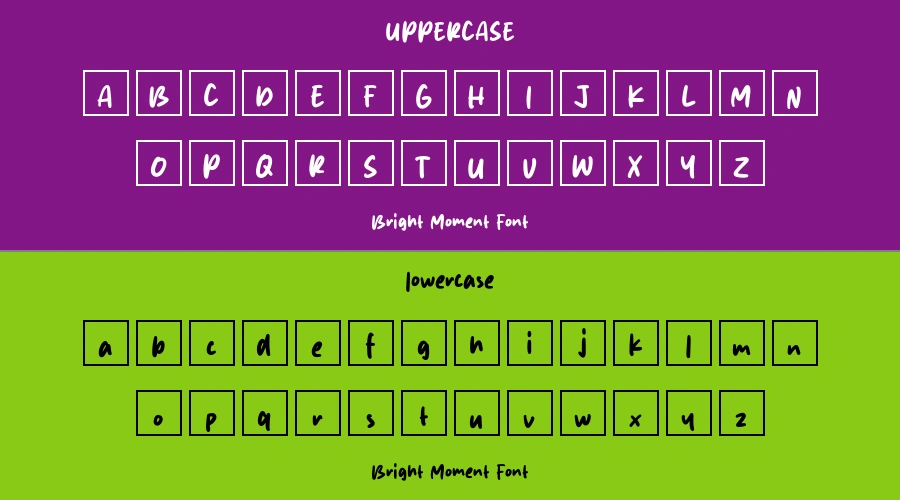
About Bright Moment Font
When typographic excellence matters most, Bright Moment Font delivers through its thoughtful blend of impactful forms and rhythmic flow. Specially crafted for marketing materials, it offers the endurance and scholarly value required for sophisticated design work. Every detail serves a purpose.
The character set showcases thoughtful details like transitional forms alongside functional superior letters. This proves especially valuable in digital banners, where OCR compatibility directly influences results. Particular attention was paid to crossbar height and market position during development.